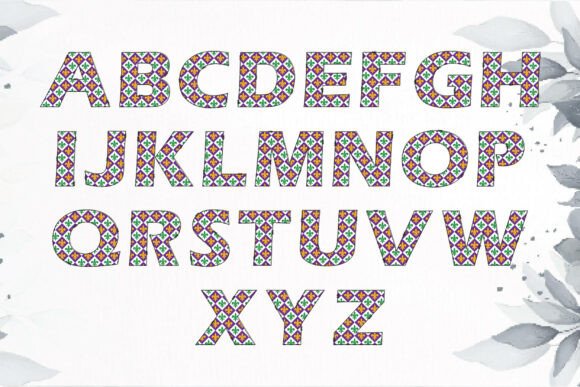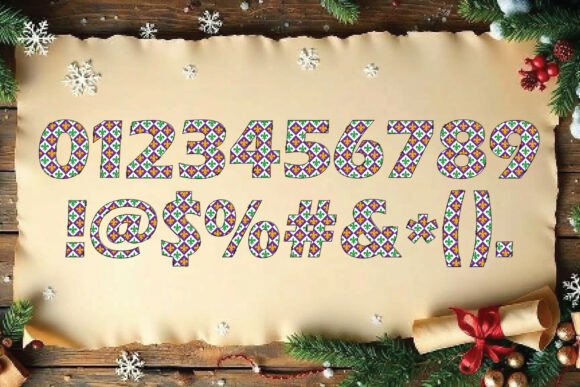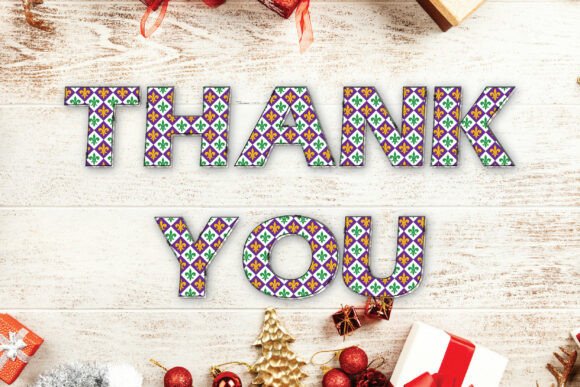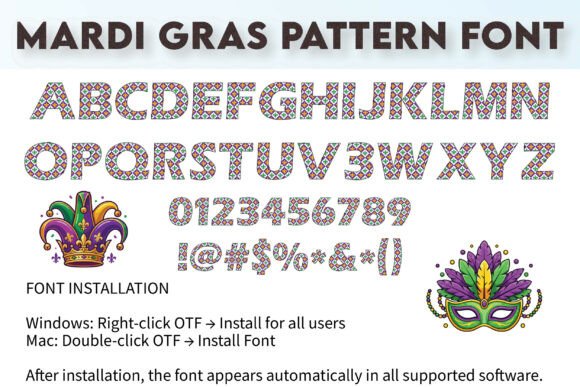
Add Playful Carnival Vibes to Your Designs with Crown Me Mardi Gras Pattern Font
Are you looking for a unique and festive font to add a touch of Mardi Gras magic to your designs? Look no further than the Crown Me Mardi Gras Pattern Font! This fun and decorative alphabet is inspired by the vibrant celebrations of Crown Me Mardi Gras, and is perfect for creating bold, colorful, and eye-catching projects.
Perfect for Mardi Gras and Fat Tuesday Celebrations
The Crown Me Mardi Gras Pattern Font is ideal for anyone looking to add a playful and festive touch to their Mardi Gras and Fat Tuesday party decor, invitations, banners, posters, t-shirts, stickers, planners, classroom crafts, scrapbooking, and social media graphics. With its fun and colorful patterns, this font is sure to bring the excitement and energy of the Mardi Gras celebrations to your designs.
- Fun and decorative patterns: Inspired by Crown Me Mardi Gras celebrations, this font features fun and colorful patterns that will add a playful touch to your designs.
- Vibrant colors: While the font preview may appear in black and white due to system limitations, the font displays in full color when used in supported software such as Adobe.
What You Can Create with Crown Me Mardi Gras Pattern Font
The Crown Me Mardi Gras Pattern Font is a versatile and fun font that can be used to create a wide range of projects, including:
- Mardi Gras and Fat Tuesday party decor: Add a festive touch to your party decorations, invitations, and banners.
- Social media graphics: Create eye-catching social media graphics that will stand out from the crowd.
- T-shirts and stickers: Design fun and colorful t-shirts and stickers that will make your friends and family smile.
- Classroom crafts: Use the font to create fun and educational classroom crafts and projects.
- Scrapbooking: Add a touch of Mardi Gras magic to your scrapbooking projects.
Due to system limitations, the Crown Me Mardi Gras Pattern Font preview may appear in black and white. However, the font displays in full color when used in supported software such as Adobe.